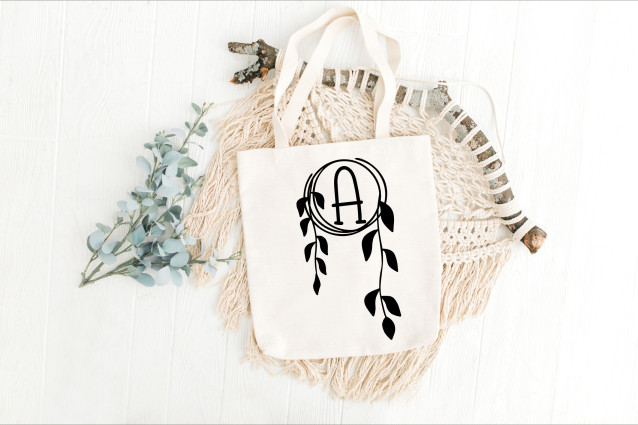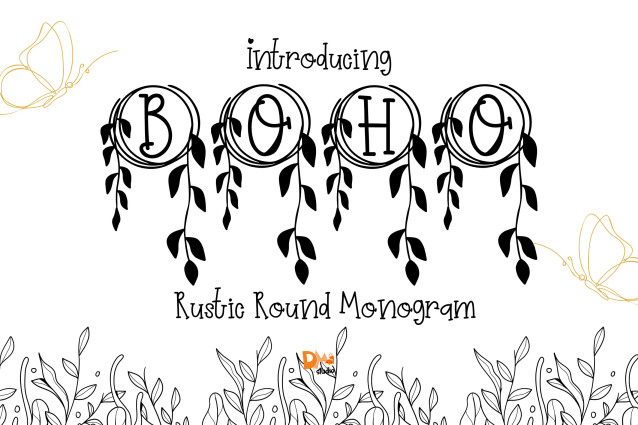
Rustic Round Monogram Font
Rustic Round Monogram Font is a warm, nature-inspired serif monogram font featuring circular letterforms framed with handcrafted rustic details. Designed to evoke simplicity and natural elegance, this font is perfect for farmhouse-style crafts, personalized gifts, and branding that needs an earthy, timeless touch.